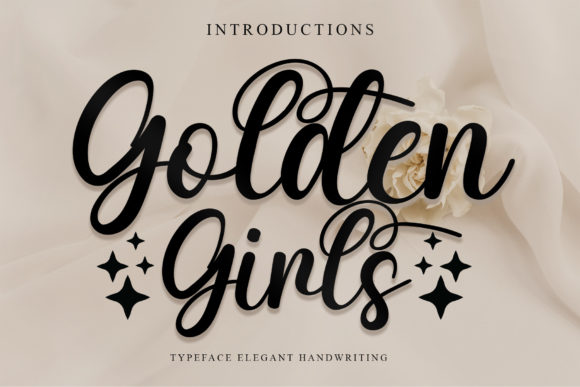
Welcome to the world of Golden Girls Font, where calligraphy and elegance intertwine to create a masterpiece. Step into a realm of exquisite lettering that will transform your designs into works of art.
Golden Girls Font is not just a mere typeface; it's an enchanting symphony of flowing strokes, graceful curves, and captivating characters. Each letter dances along the baseline with a rhythm that echoes the joyous spirit of celebration.
Imagine your wedding invitations adorned with the Golden Girls Font, exuding an air of timeless romance and sophistication. The delicate flourishes and intricate details will set the tone for a day filled with love and joy.
With Golden Girls Font, your brand identity will radiate a touch of timeless charm. Its elegant strokes will elevate your logo, creating a visual identity that speaks volumes about your dedication to quality and attention to detail.
Unleash your creativity with Golden Girls Font. Whether you're designing wedding stationery, branding materials, or simply adding a touch of sophistication to your personal projects, this font will make your vision come to life.
Experience the magic of Golden Girls Font today and unlock a world of possibilities. Let the beauty of calligraphy transport you to a place of elegance and inspiration.